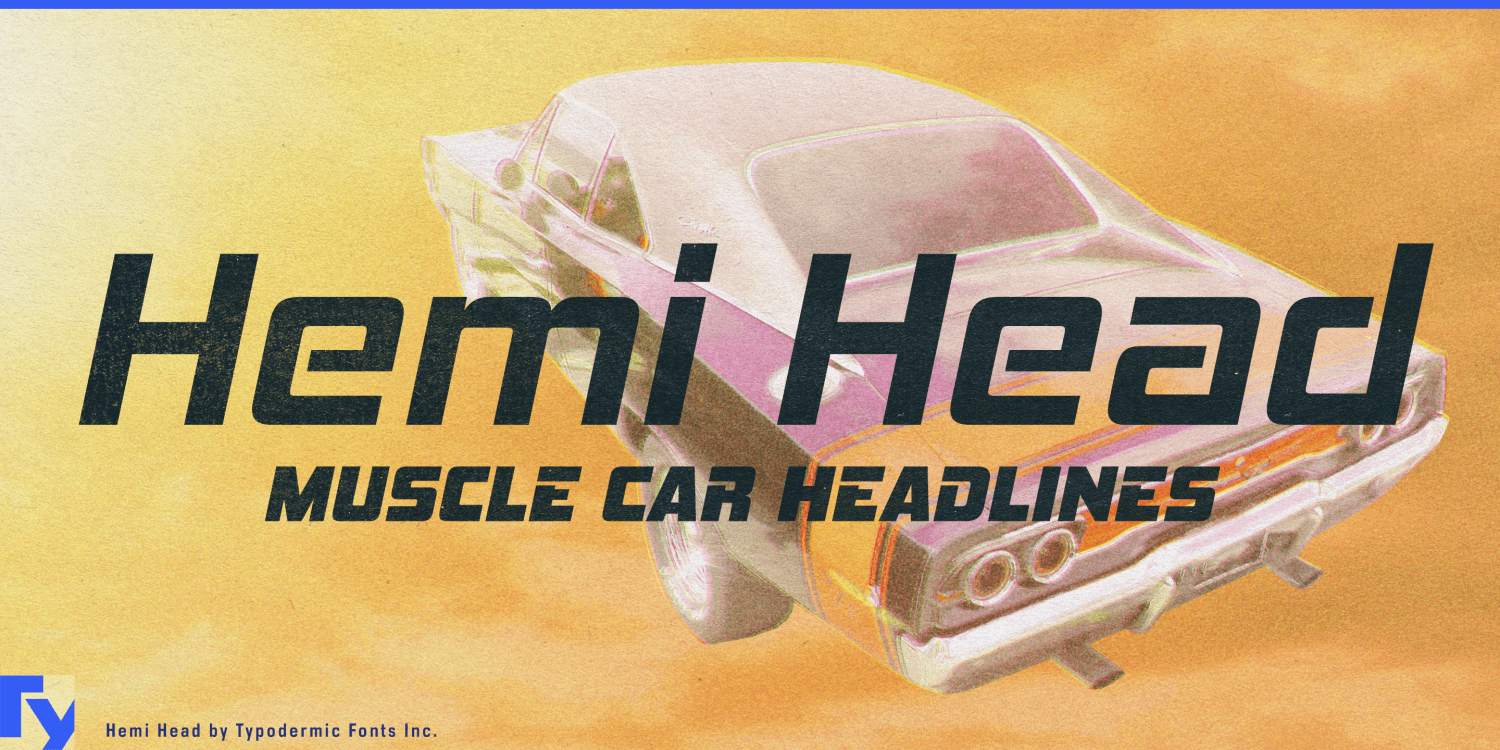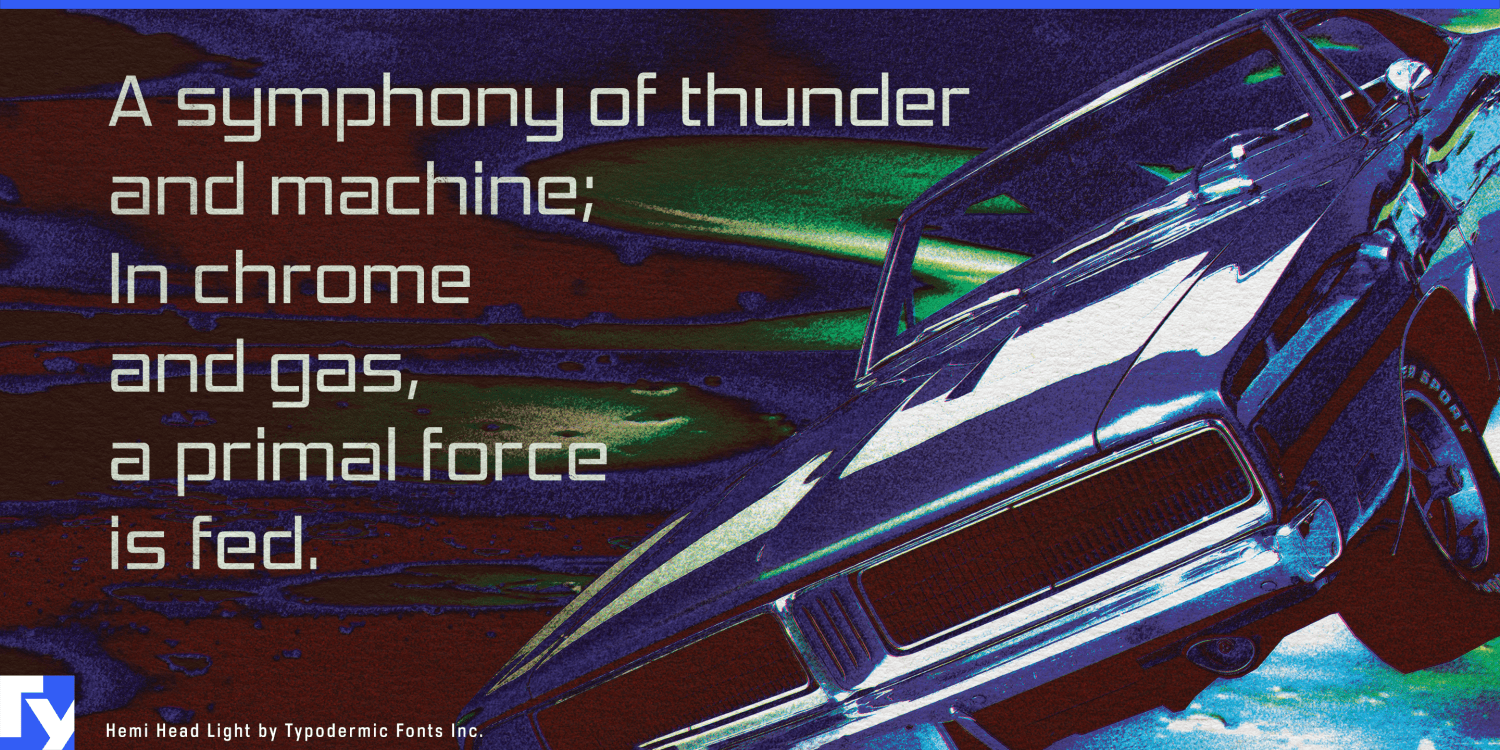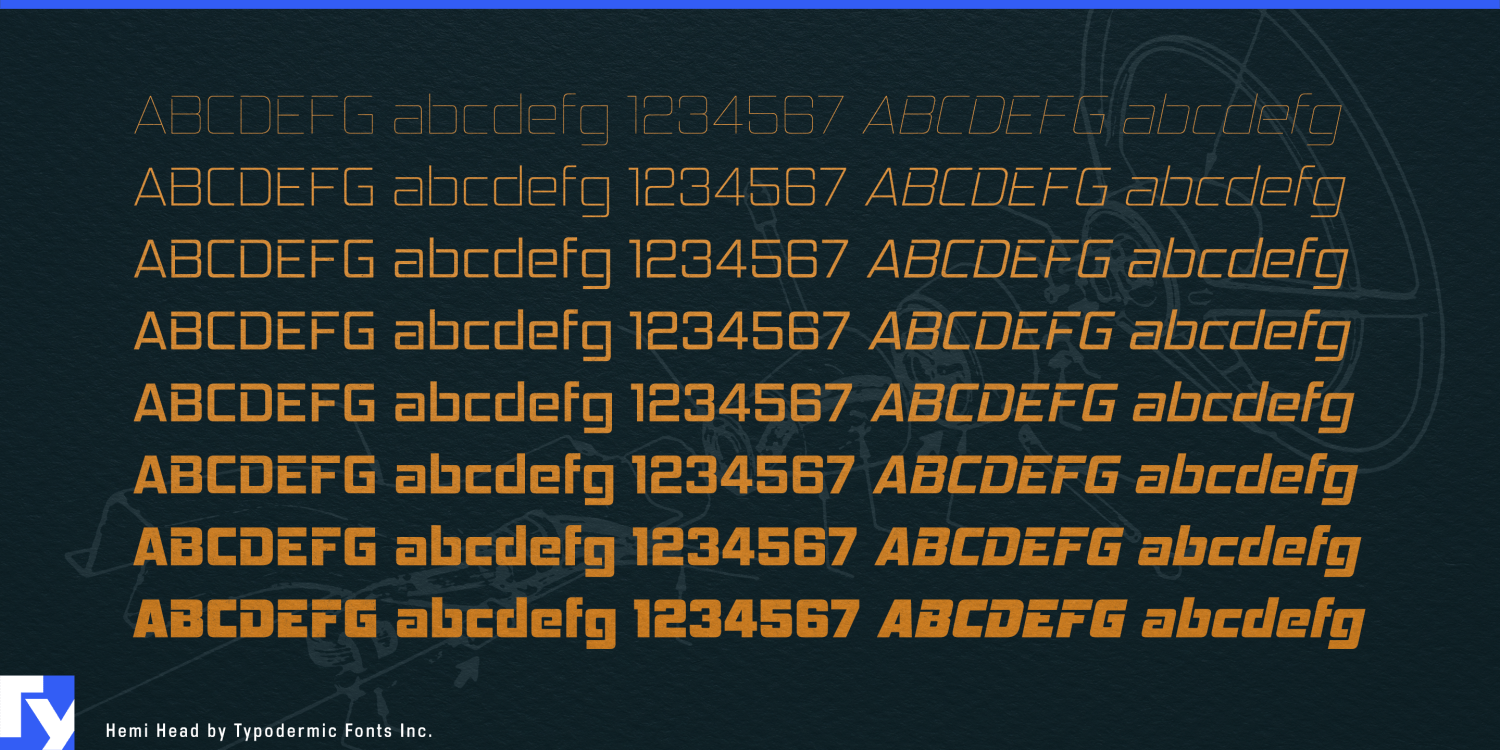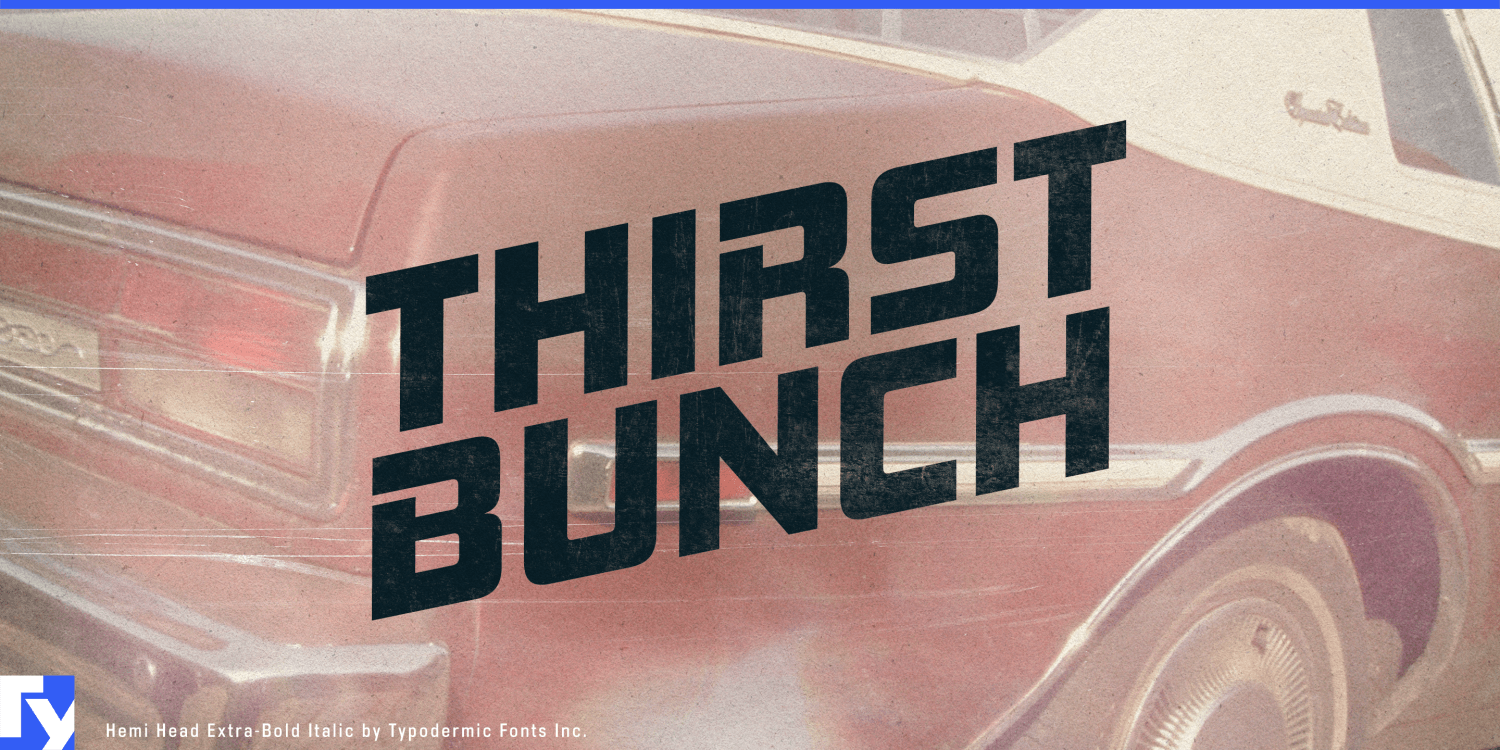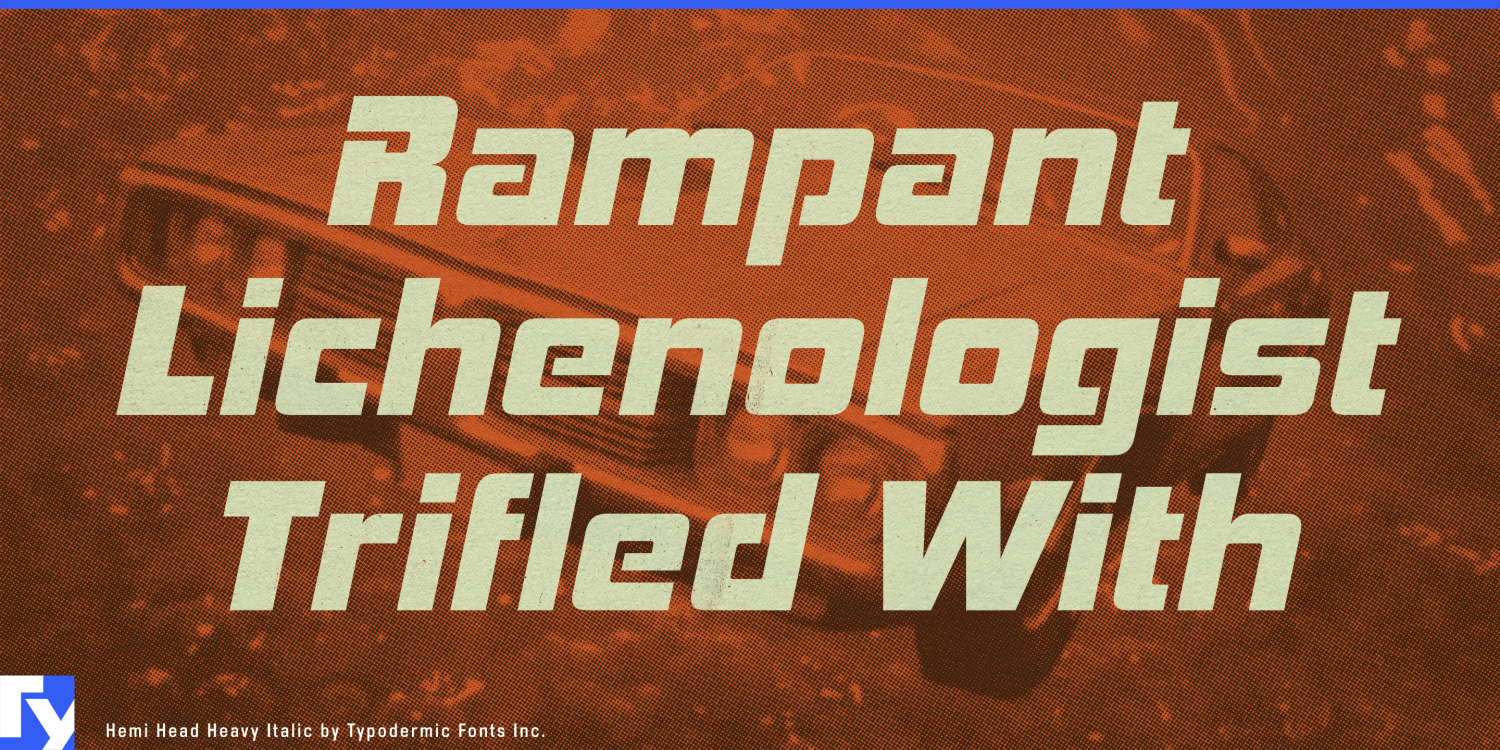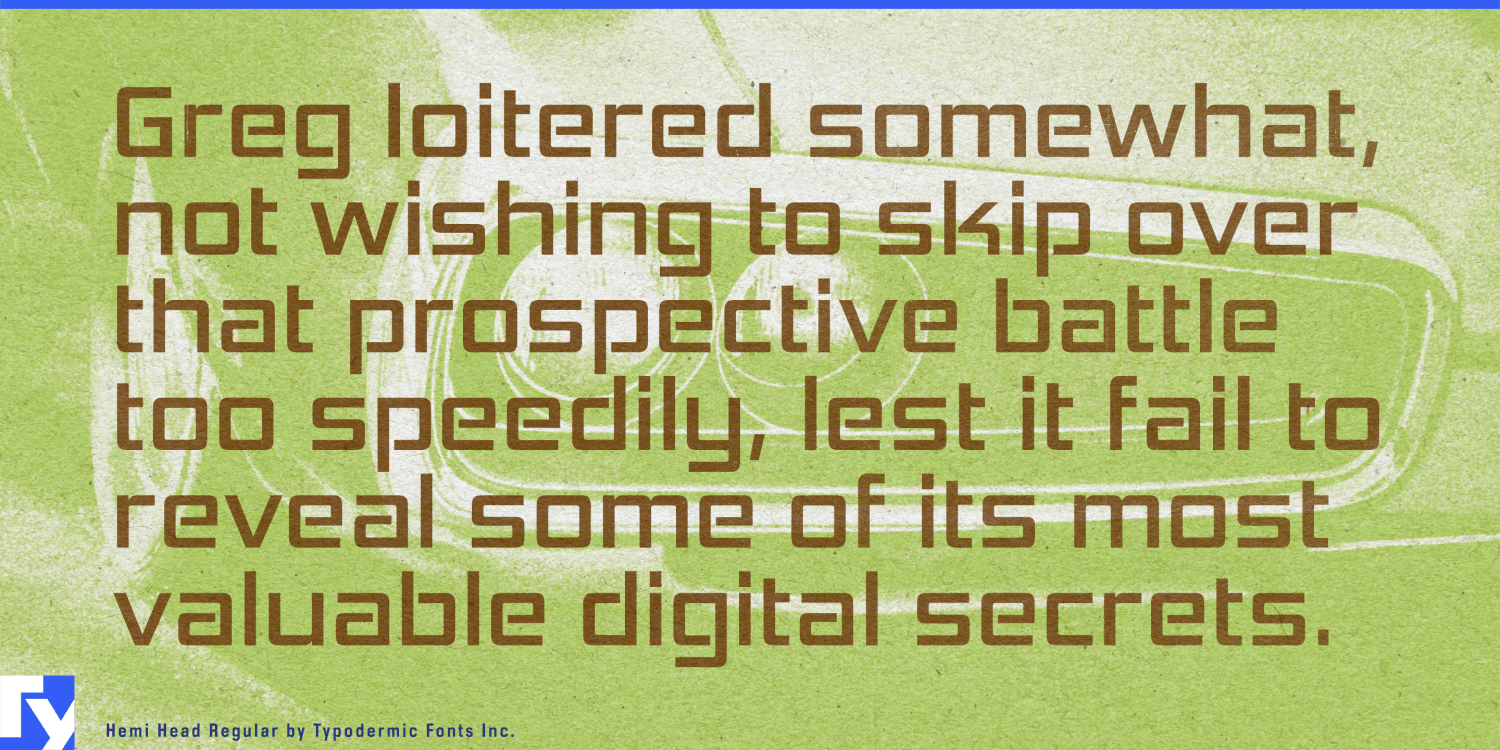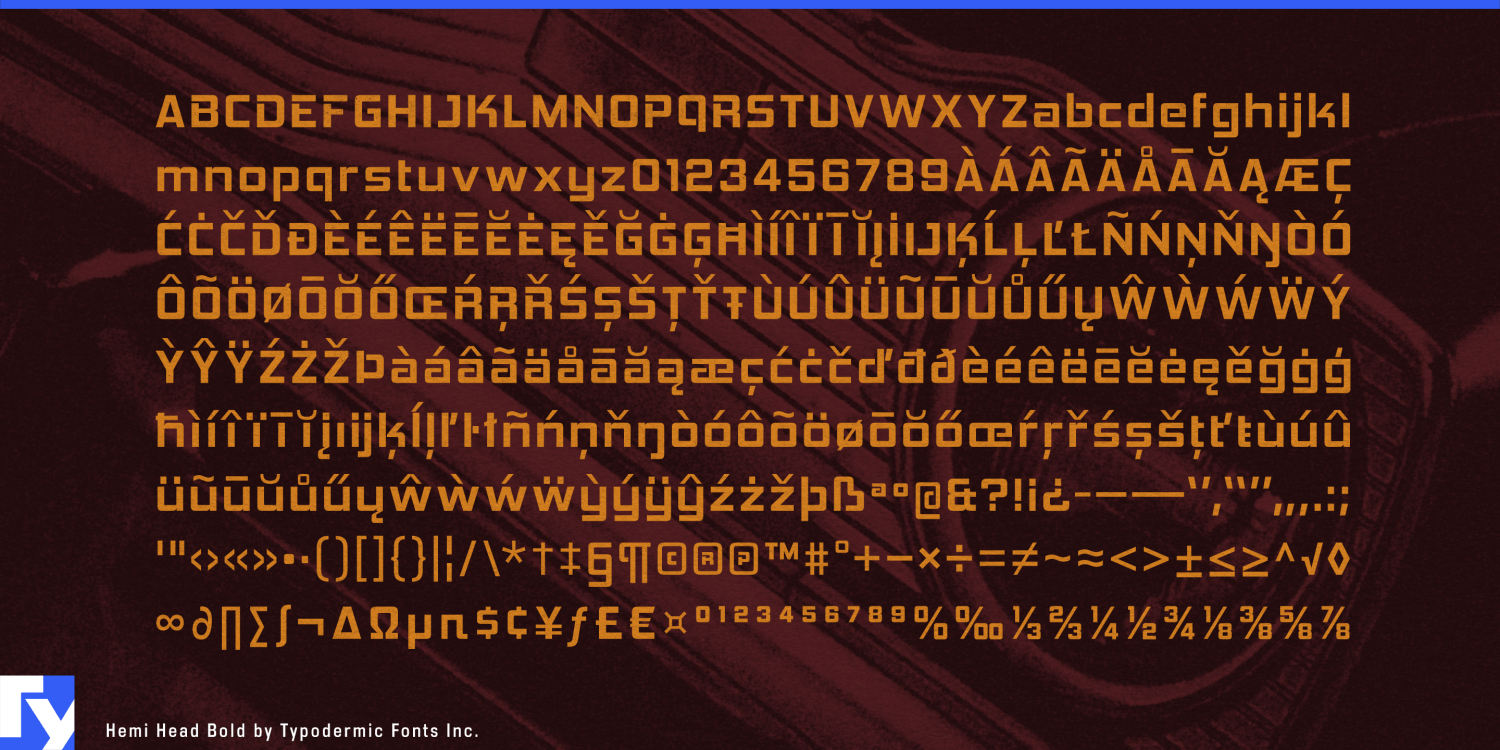
Hemi Head
Font Family by Typodermic
Hemi Head takes its cue from the blocky, aggressive lettering of classic American muscle cars, but it’s more than a nostalgia trip. Its squarish geometry, angled terminals, and clean counters combine to create letterforms that look fast, solid, and precise…built for impact without sacrificing legibility.
The upright styles hold their ground, delivering a confident, industrial presence. Switch to italics, and the stance shifts forward, injecting instant 11.3° motion into headlines, titles, and branding. From hairline to heavy, each weight retains the same mechanical precision, making it as comfortable in a sleek esports logo as it is in a vintage racing poster.
Use the lighter weights for modern tech branding, aerospace graphics, or minimalist sportswear. Crank up to the heaviest styles for action-movie posters, motorsports merch, or anything that needs to shout with authority. The full family includes nine weights with matching italics.
Whether you’re setting type for a championship team, a gaming franchise, an automotive event, or high-performance gear, Hemi Head delivers power, precision, and presence. Shift into gear and see where it takes your designs.